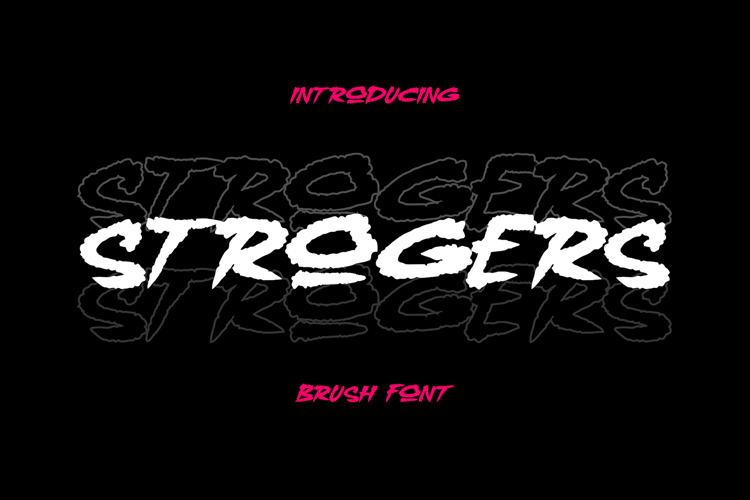
Strogers | The Ultimate Bold Brush Font
🔥 Strogers – The Ultimate Bold Brush Font 🎨
Unleash the power of bold strokes with Strogers, the ultimate brush font designed for impact! With its strong, dynamic brush strokes and raw energy, Strogers brings an edgy, hand-painted feel to any project. Perfect for branding, posters, album covers, apparel, and sports designs, this font is built to stand out and make a statement.
Whether you’re designing for streetwear, action-packed graphics, or high-energy promotions, Strogers adds a bold, expressive, and fearless vibe that demands attention.
💥 Why Strogers?
✅ Powerful Brush Strokes – A handcrafted, energetic look with raw details.
✅ Bold & Impactful – Designed to make your message stand out.
✅ Versatile & Dynamic – Perfect for posters, branding, merchandise, and digital art.
✅ Handcrafted Feel – Authentic brush textures for a realistic touch.
✅ Multilingual Support – Includes multiple languages for global appeal.
✅ Complete Character Set – Comes with uppercase, lowercase, numbers, punctuation, and special symbols.
🎨 Unleash Creativity with Strogers! 🎨
💡 Perfect for:
🔥 Sports & Action Branding
📢 Bold Posters & Event Flyers
🖌 Apparel & Merchandise Design
🎬 Movie Titles & Trailers
🎮 Gaming & Esports Graphics